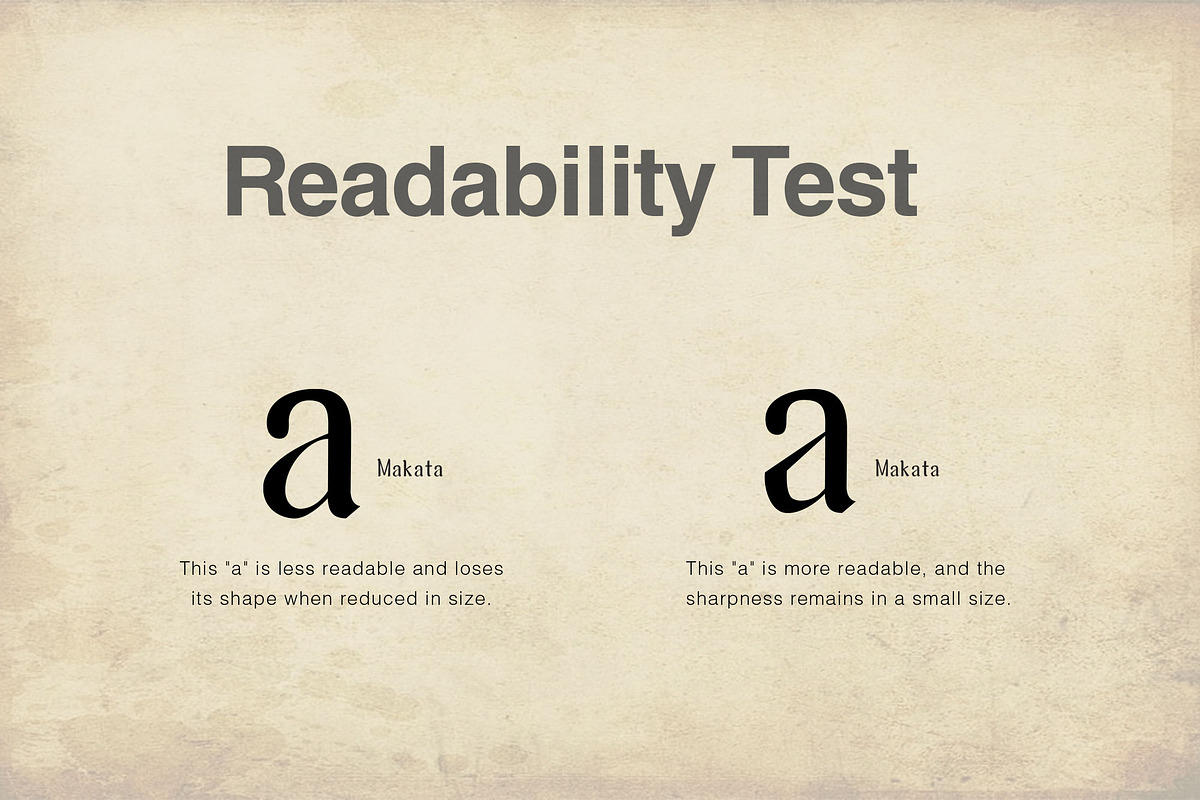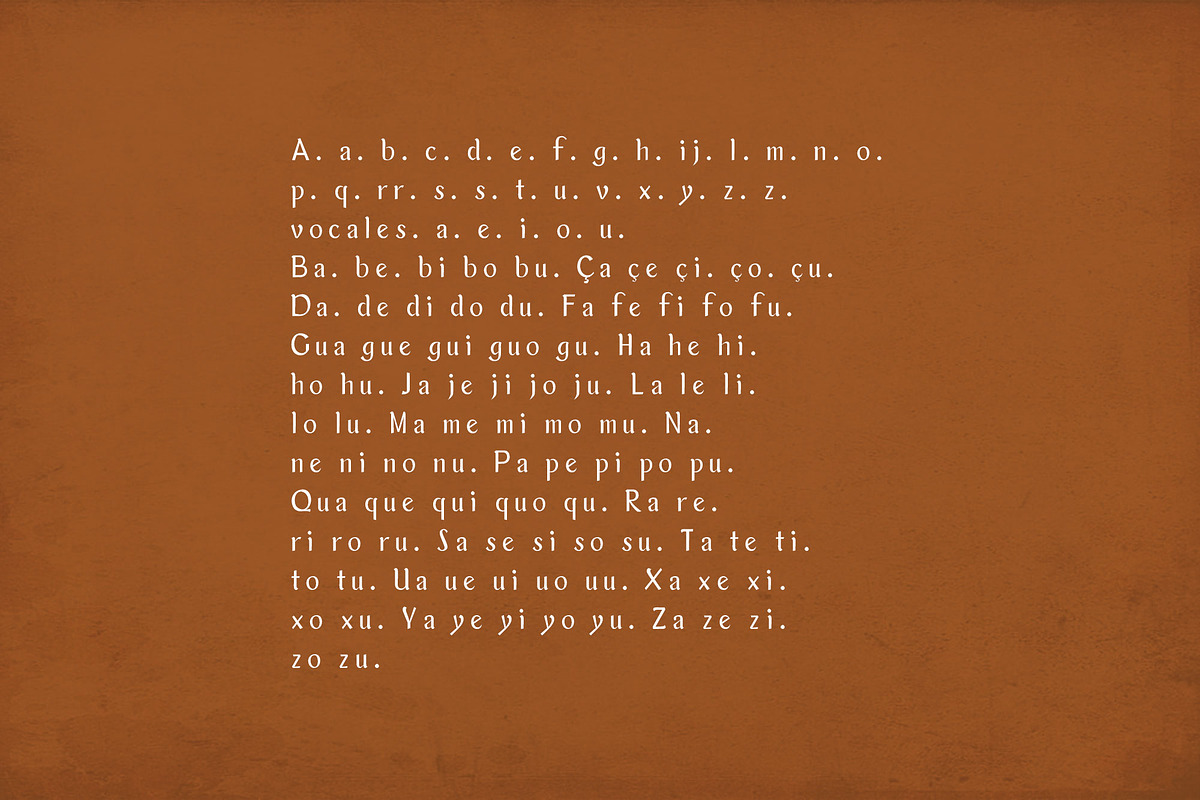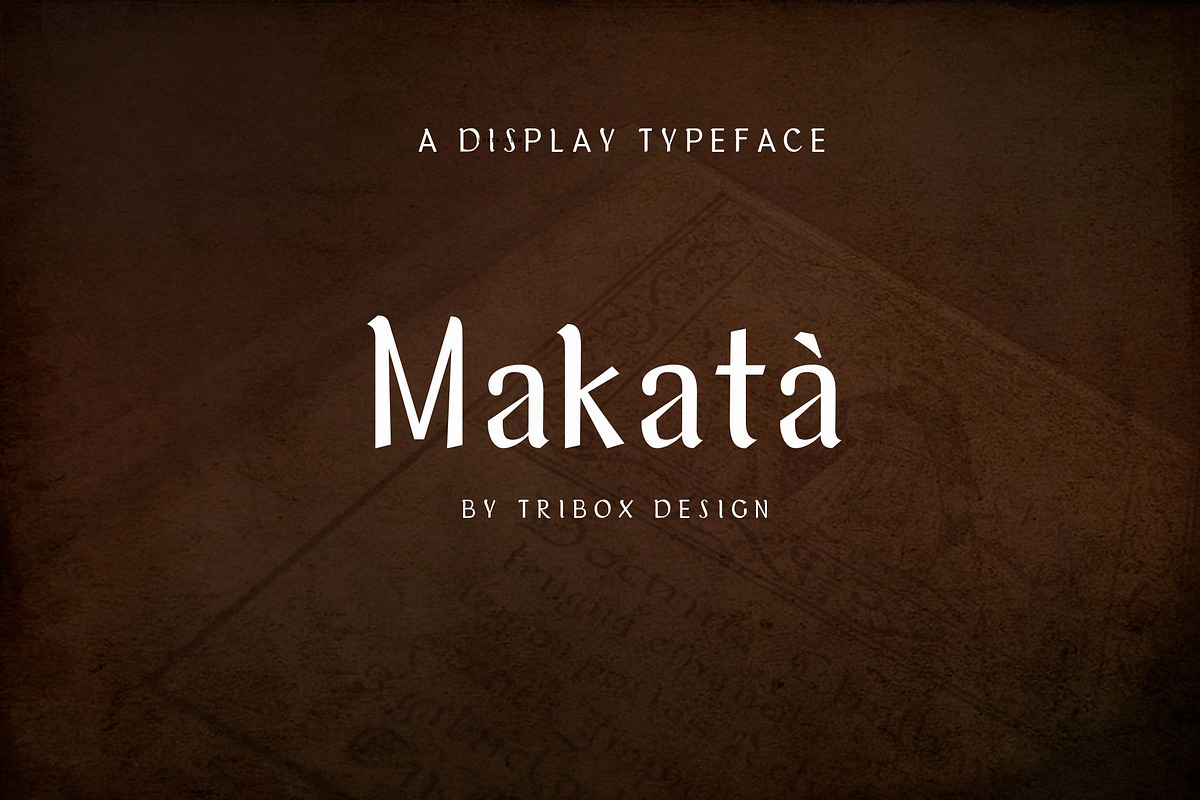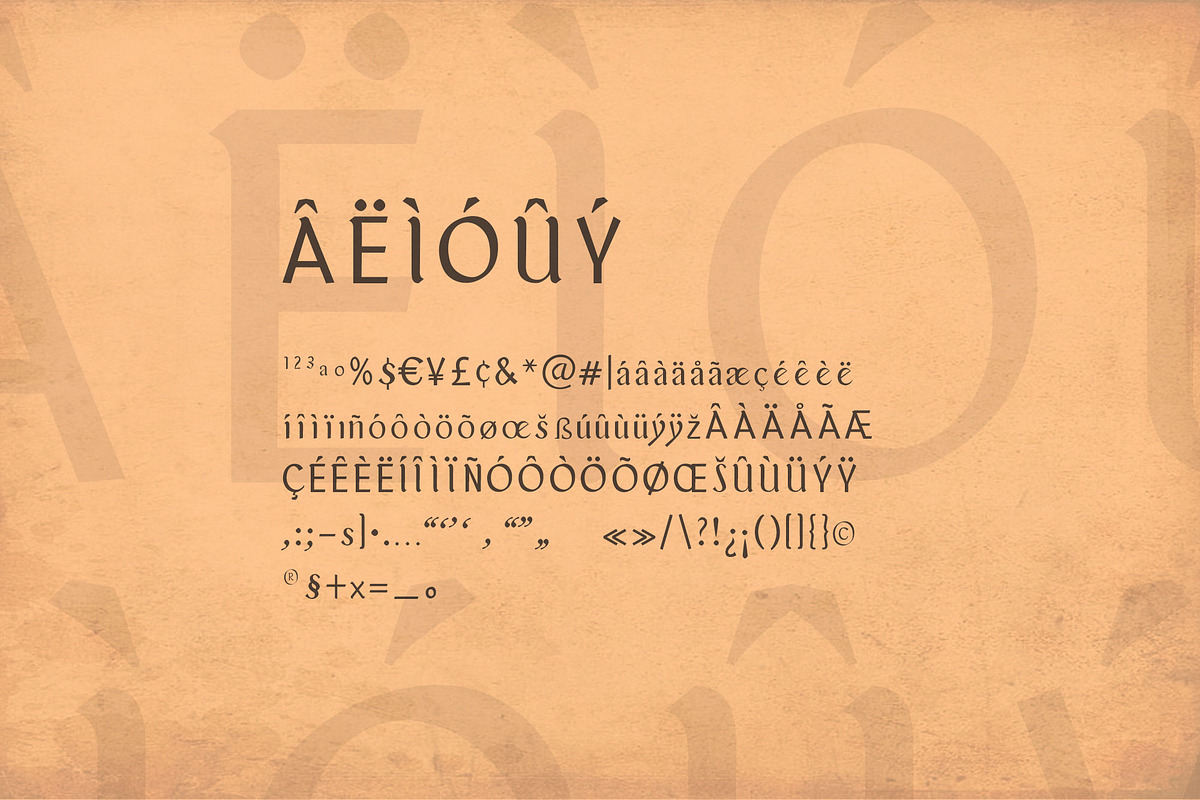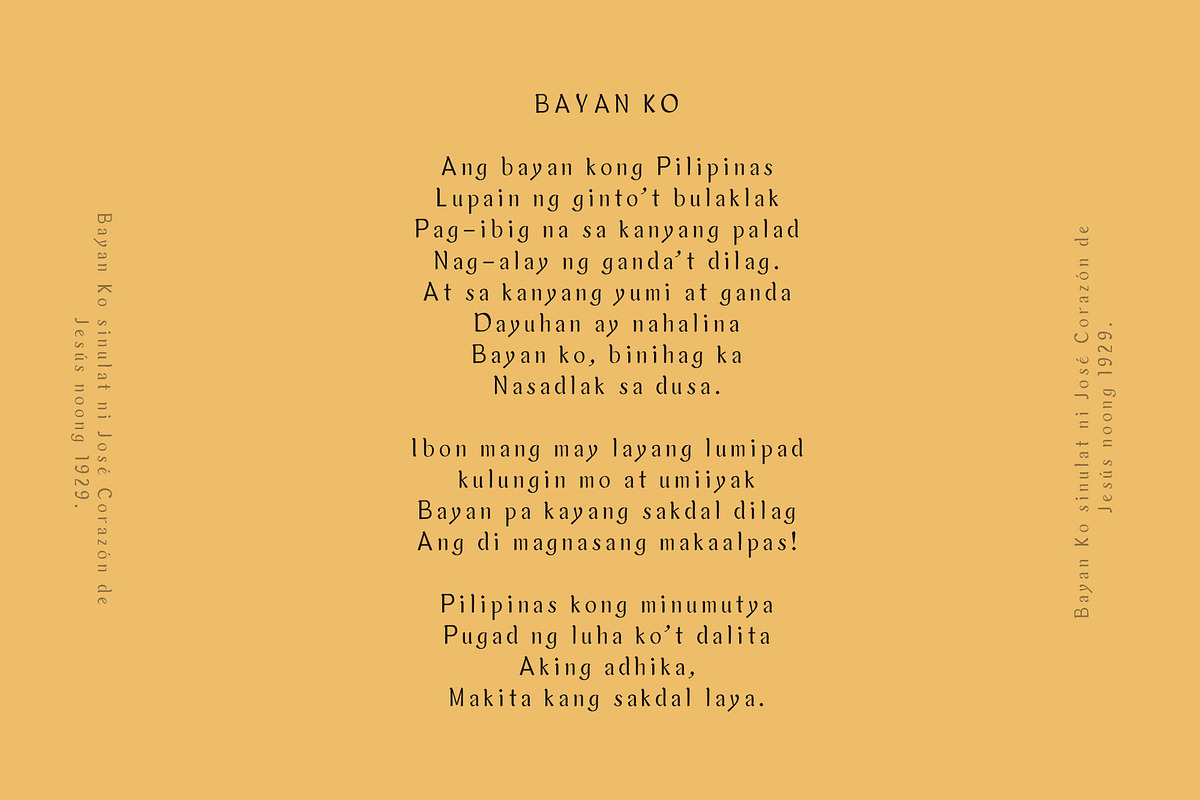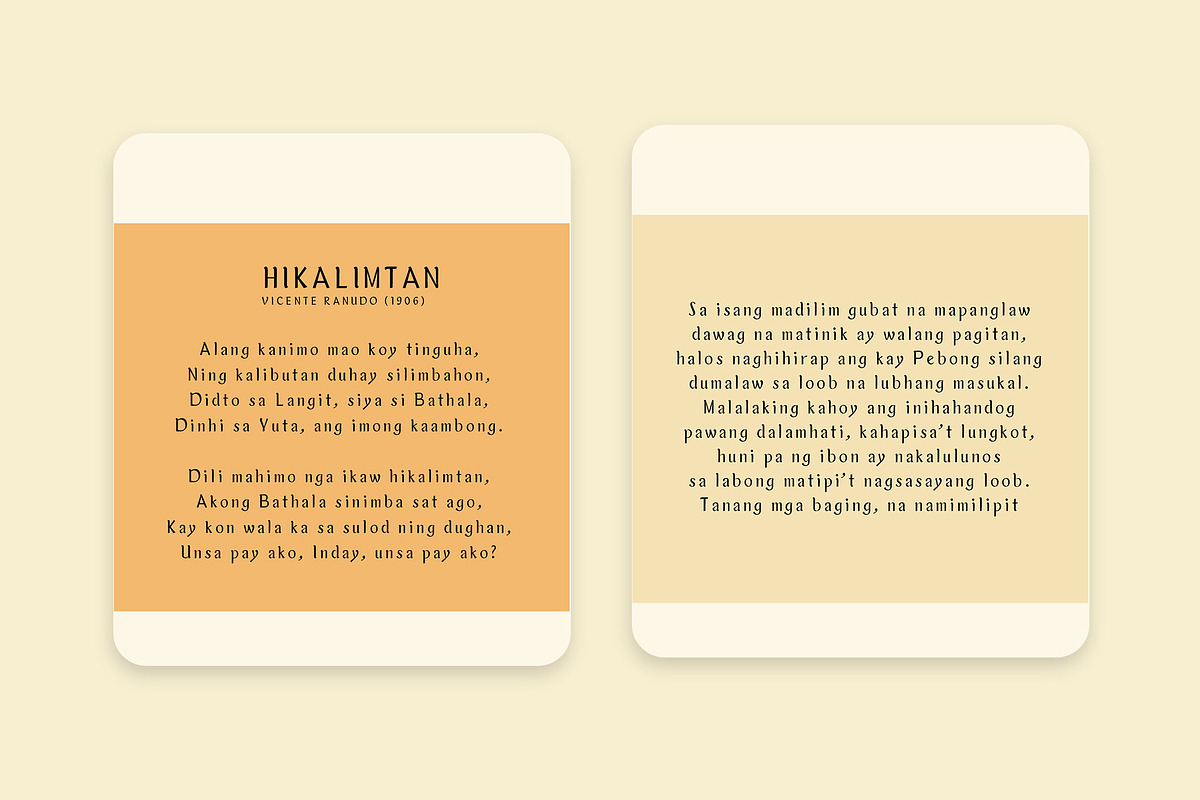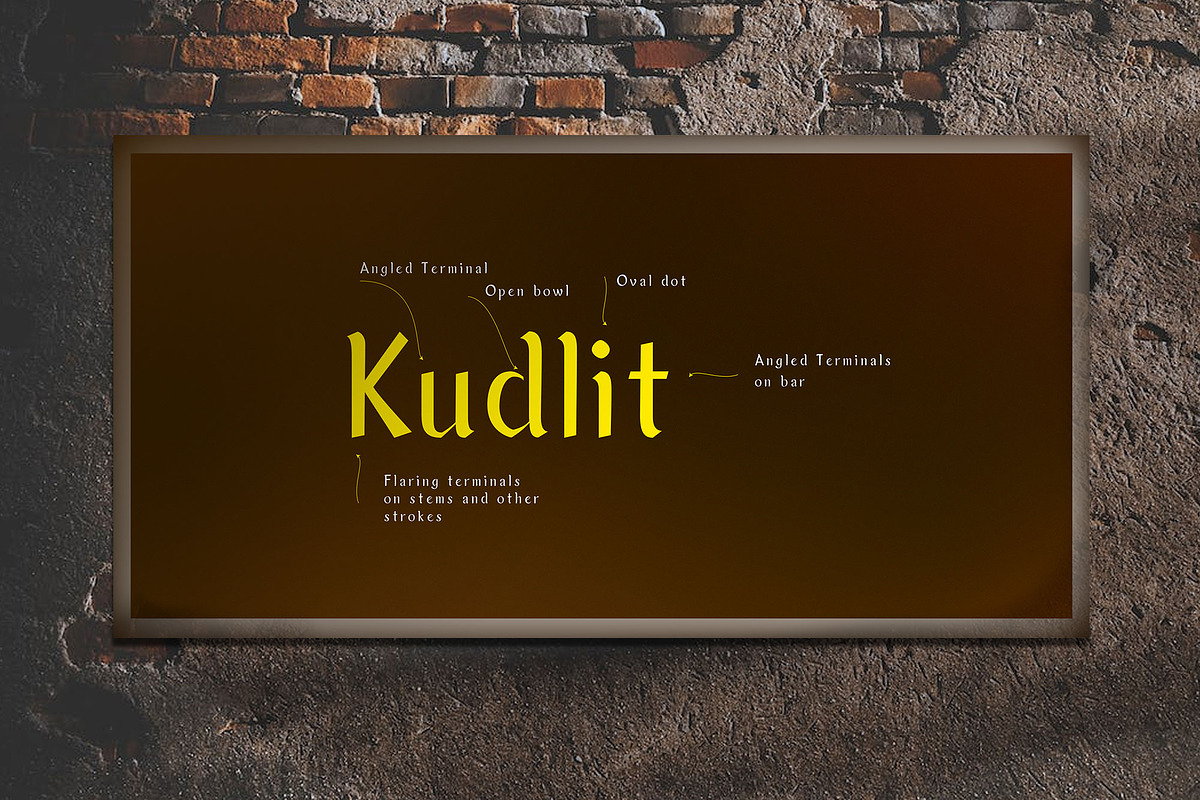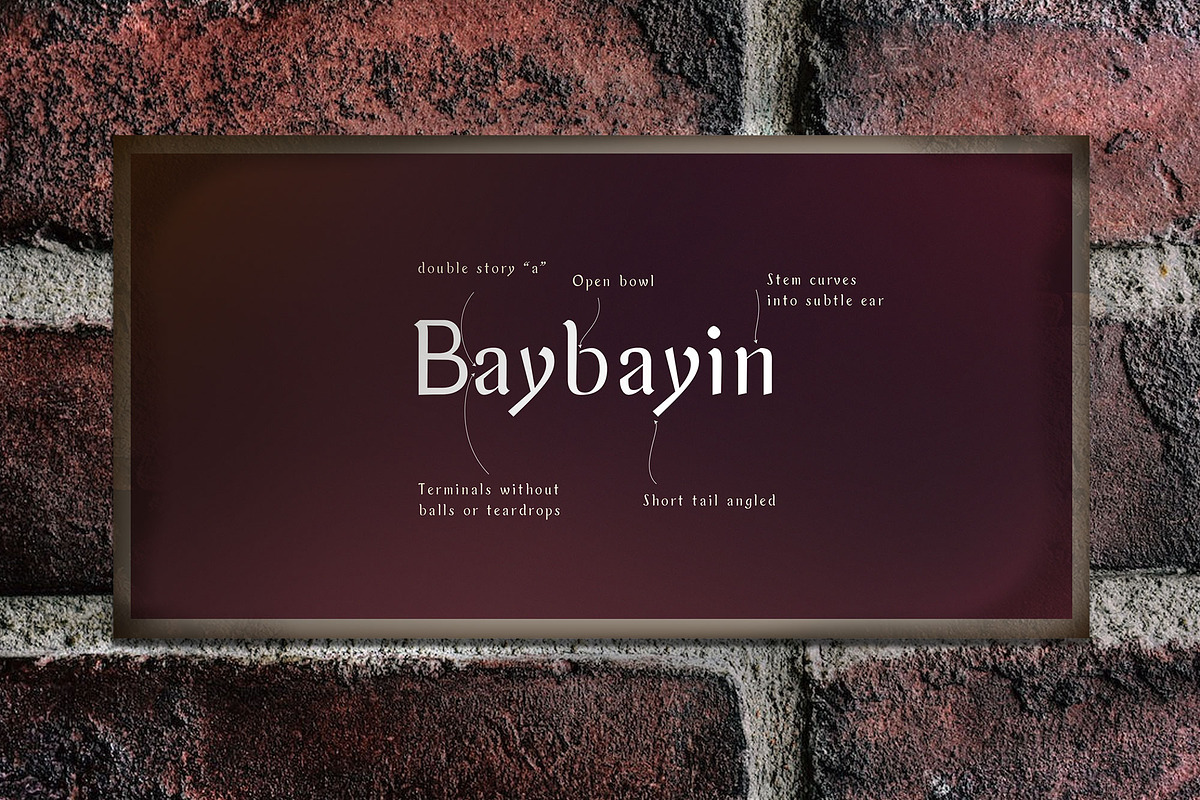
TD Makata
About TD Makatà Font
TD Makatà is a typeface based on the font used in the book “Doctrina Christiana”, the first book printed in the Philippines.
The “Doctrina Christiana” holds one of the earliest examples of printed Tagalog in Romanized and Baybayin script. Baybayin was a writing system based on an Indic script, which was developed prior to contact with the Spanish. The script is evidence of the Philippines’ connection to larger Southeast Asian trends, particularly the use of Indic writing for local languages.
The Challenge
Doctrina Christiana is considered one of the most important books, not because it was the first book printed in the Philippines but because of its valuable contribution to the tradition, language, and culture of the Filipinos.
What is the challenge?
Text used in local books can be difficult to read.
Text in many local books are not properly spaced.
What the team offers:
Re-create each letter.
Provide the right kerning for each letter.
Reproduce the font and make it available.
Explore the new publishing possibilities of Philippine poetry.
The Team Solutions
Team Tribox Design created the font to improve the old font print of Doctrina Christiana. Each letter is designed for better readability even in small sizes, particularly for books, and is designed for poets, writers, and anyone who needs a font used in publishing.
The following are the key features of the typeface:
Flaring terminals on stems and other strokes
Open bowl
Oval dots
Doubled story “a”
Single Story “g”
Stem curves into a subtle ear
Short-tail angled
Terminal without balls or teardrops